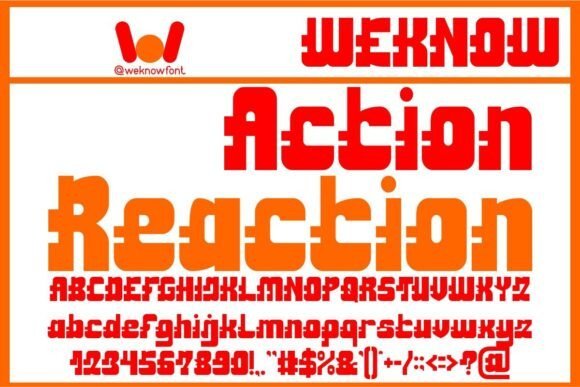
Introduction to Action Reaction Font
Introducing Action Reaction, an innovative display font with an eclectic character that’s part techno, part sci-fi, and part futuristic, yet with an endearing whimsical twist.
This one-of-a-kind typeface is an ideal choice for lavishly multidimensional applications, be it logos, logotypes, or attention-grabbing headlines An exceptional match for corporate and brand identities, it also finds its true strength in dynamic domains like the fashion industry.
Key Features of Action Reaction Font